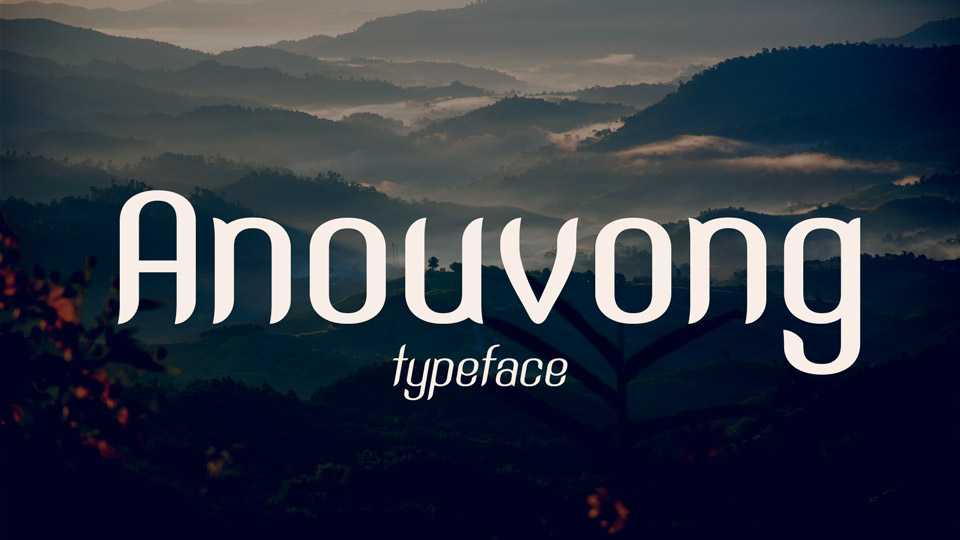
Download Anouvong typeface, a sans serif family with a smooth Asian typography style in Regular, Meduim and Bold weights and matched Italics. Anouvong typeface works great for texts, short messages and titles.
Designer: Sengkeo Vangxiengvue